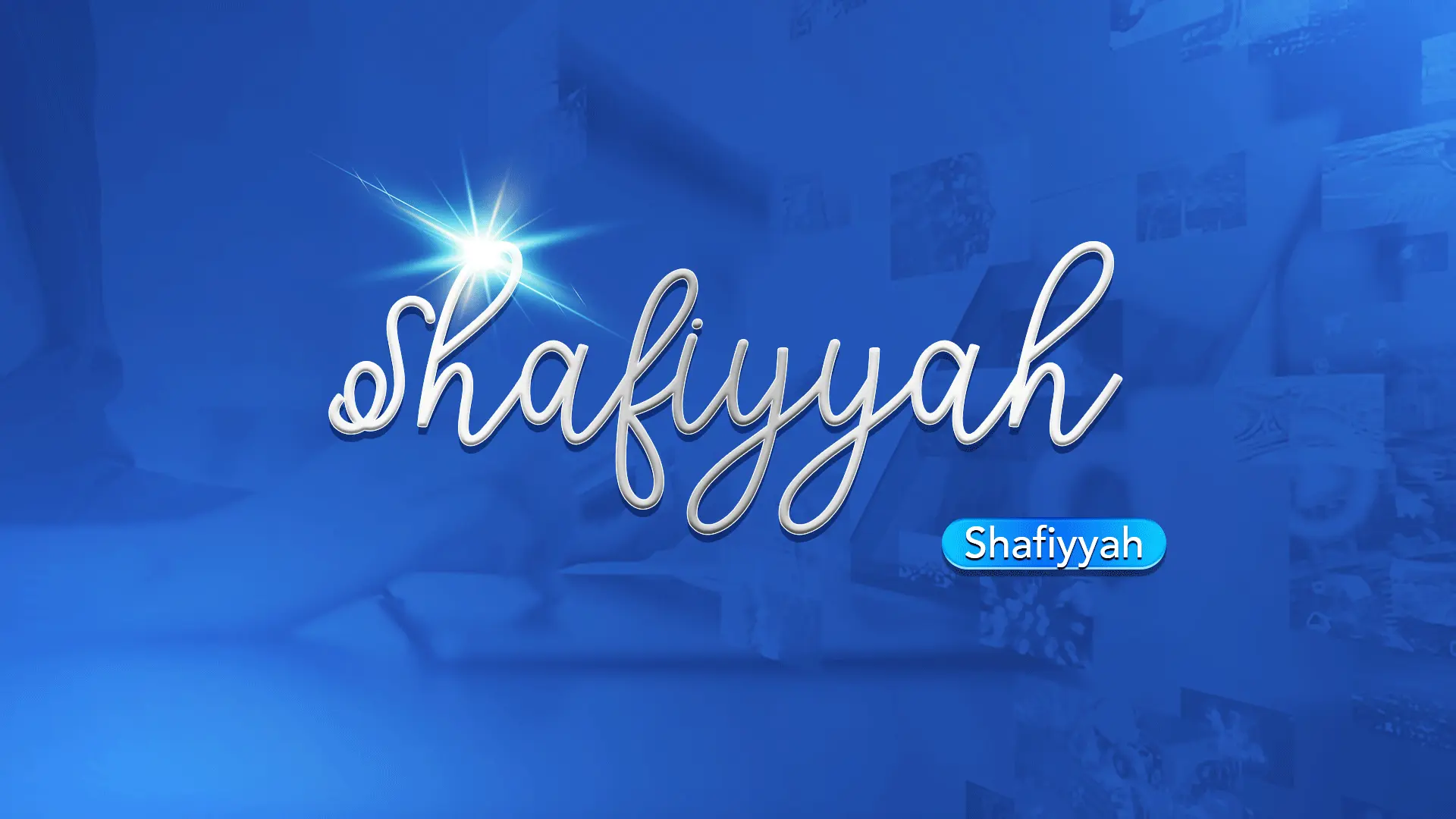
The Shafiyyah font family may be ideal for you if you enjoy working on an artistic design project. The lively, expressive look of this typeface, which was created by Munawir, makes it ideal for Branding and Logos, Invitations and Stationery, Social Media & Digital Content( To present inspirational quotes or personal reflections in a stylish and appealing way ) and other light-hearted visual projects.
Regular are the one primary font styles of the Shafiyyah font family. You may build dynamic, visually appealing text layouts with the distinct flair that each style offers. With crisp, readable lines and a relaxed tone.